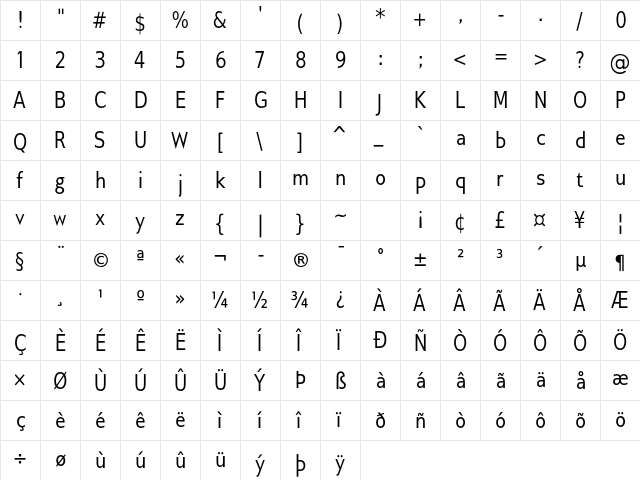
Gillius ADF Cond Regular
| Foundry | Arkandis Digital Foundry. |
| Designer | Hirwen HARENDAL |
Design Context for Gillius ADF Cond Typeface
Gillius ADF Cond takes a measured approach to typography — its balanced proportions and neutral character make it a reliable workhorse for both digital and print work. Its narrow stance lets it pack a punch even in space-constrained designs.